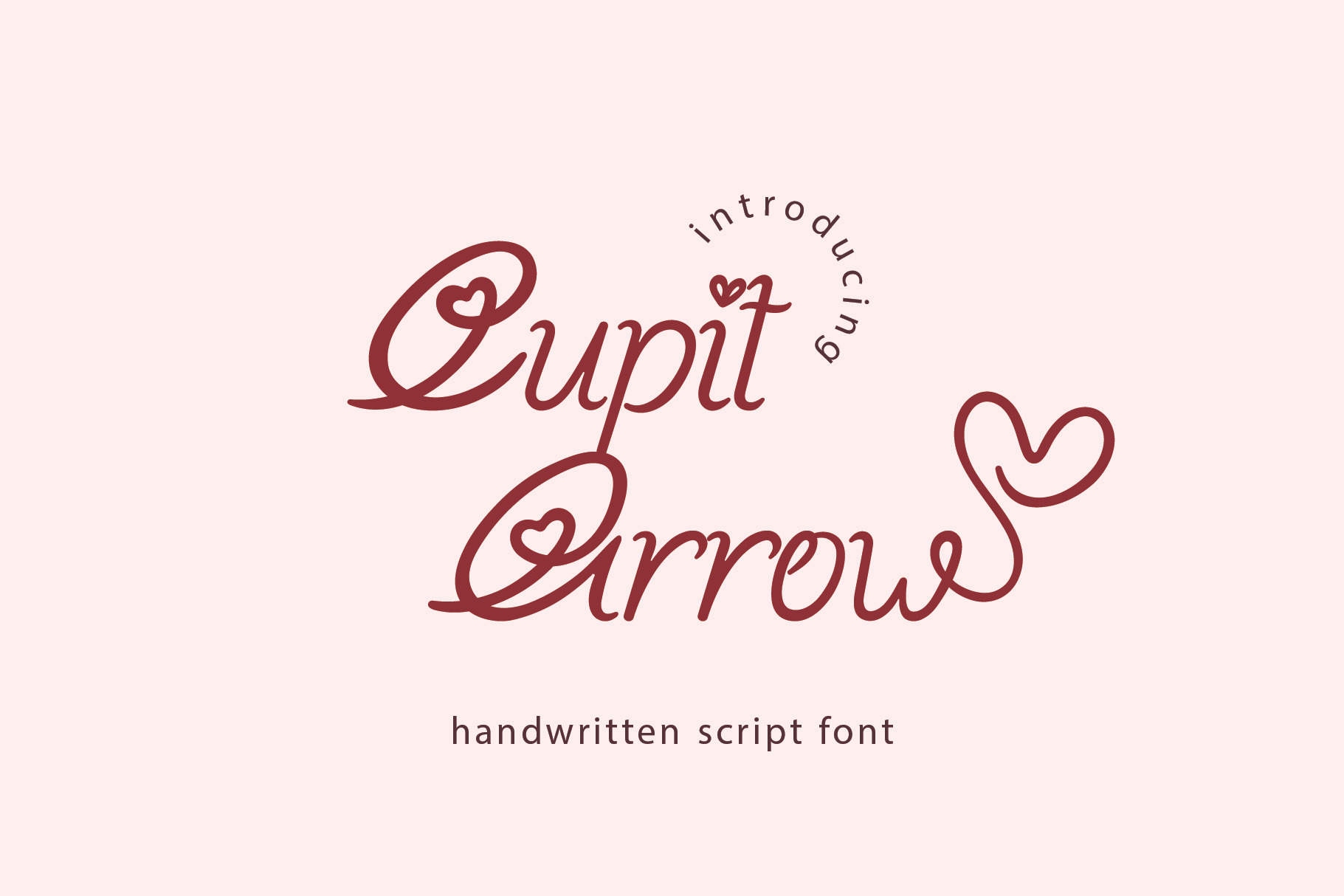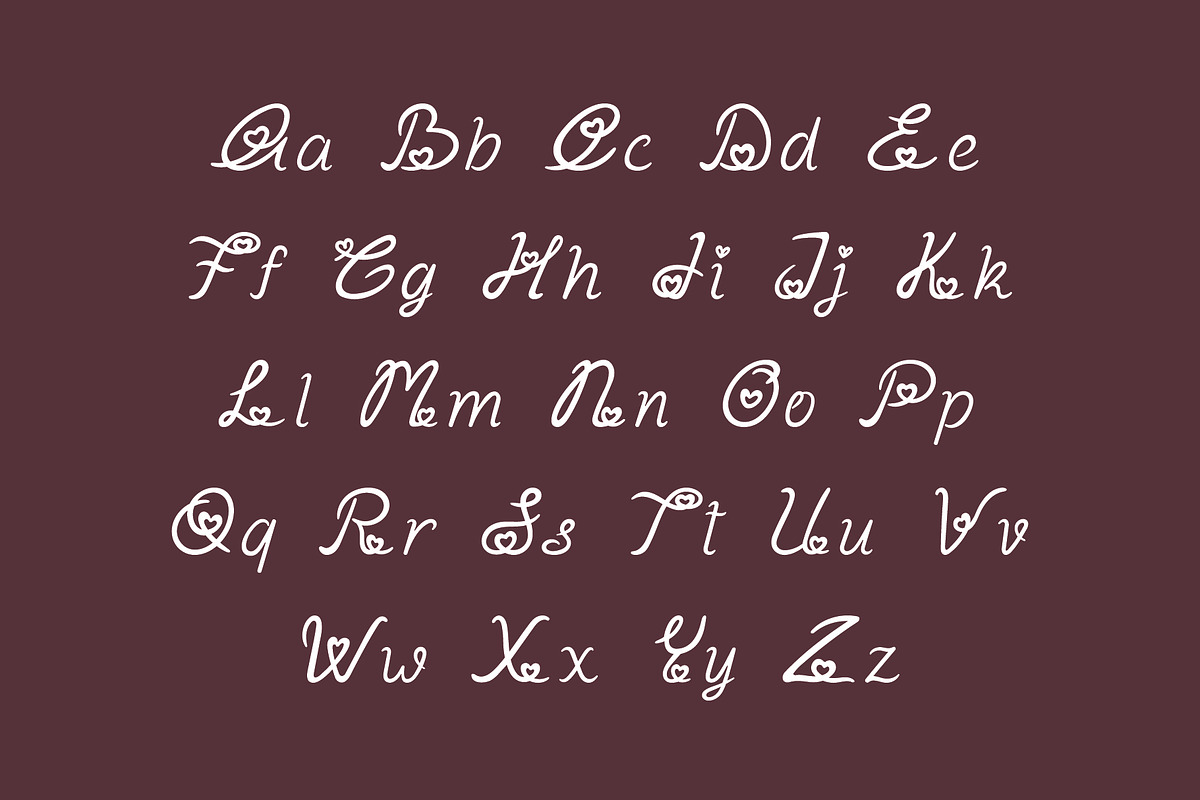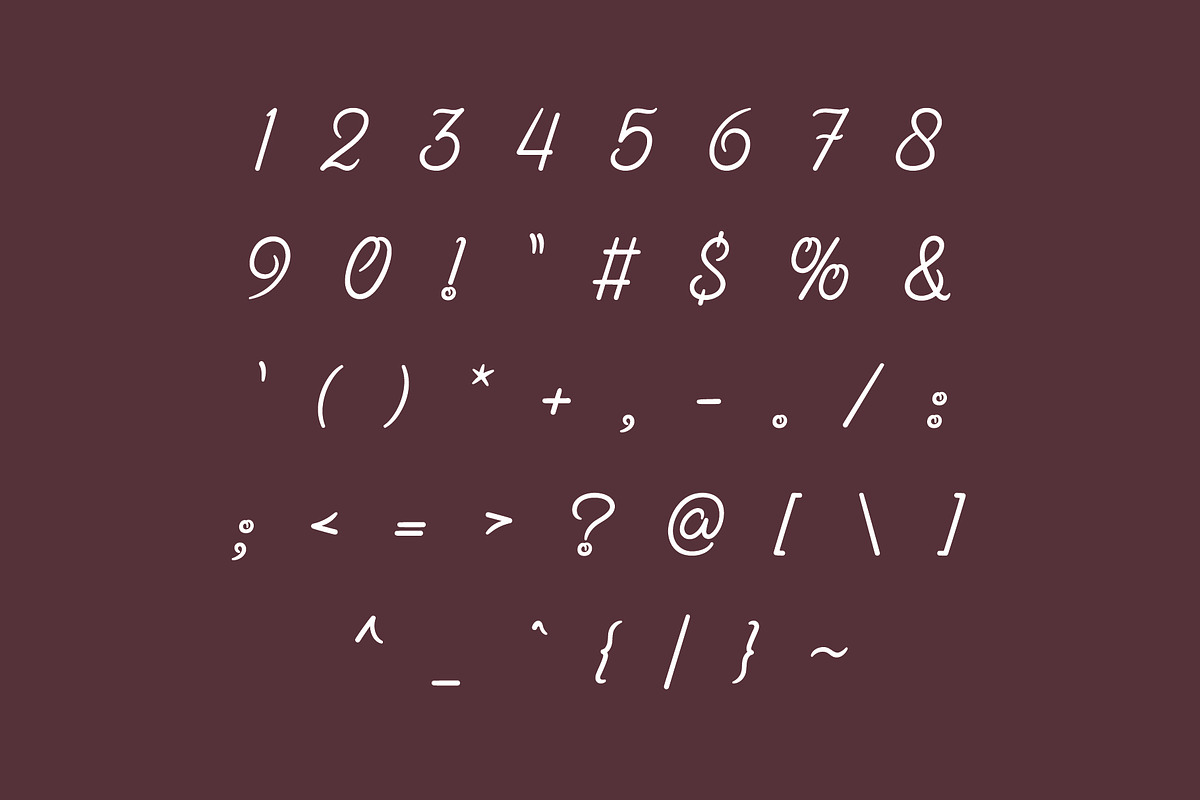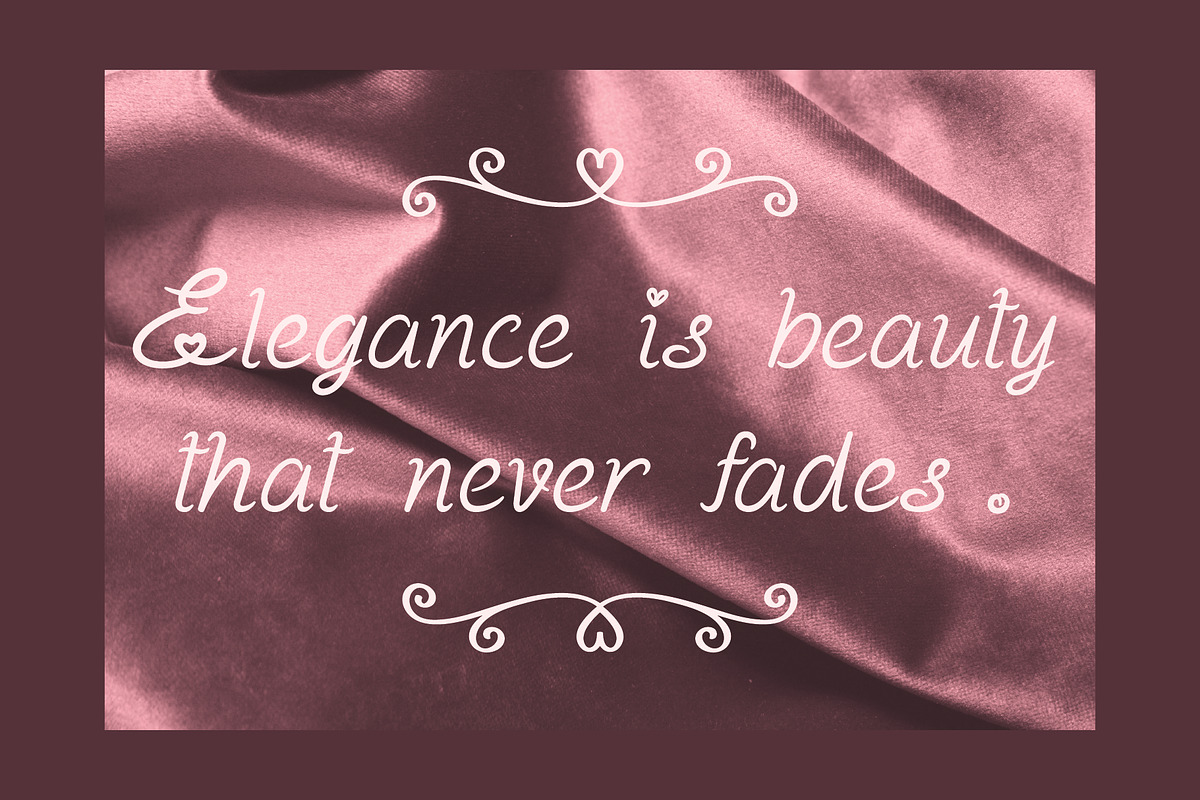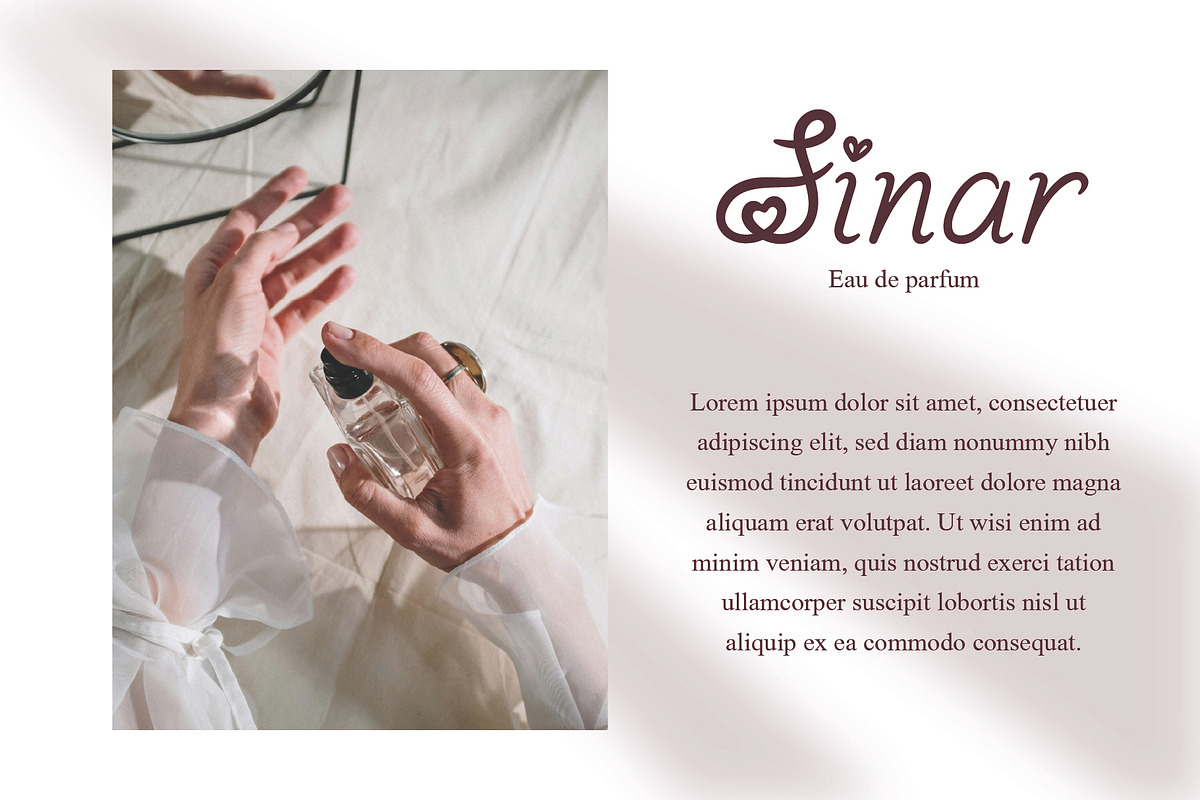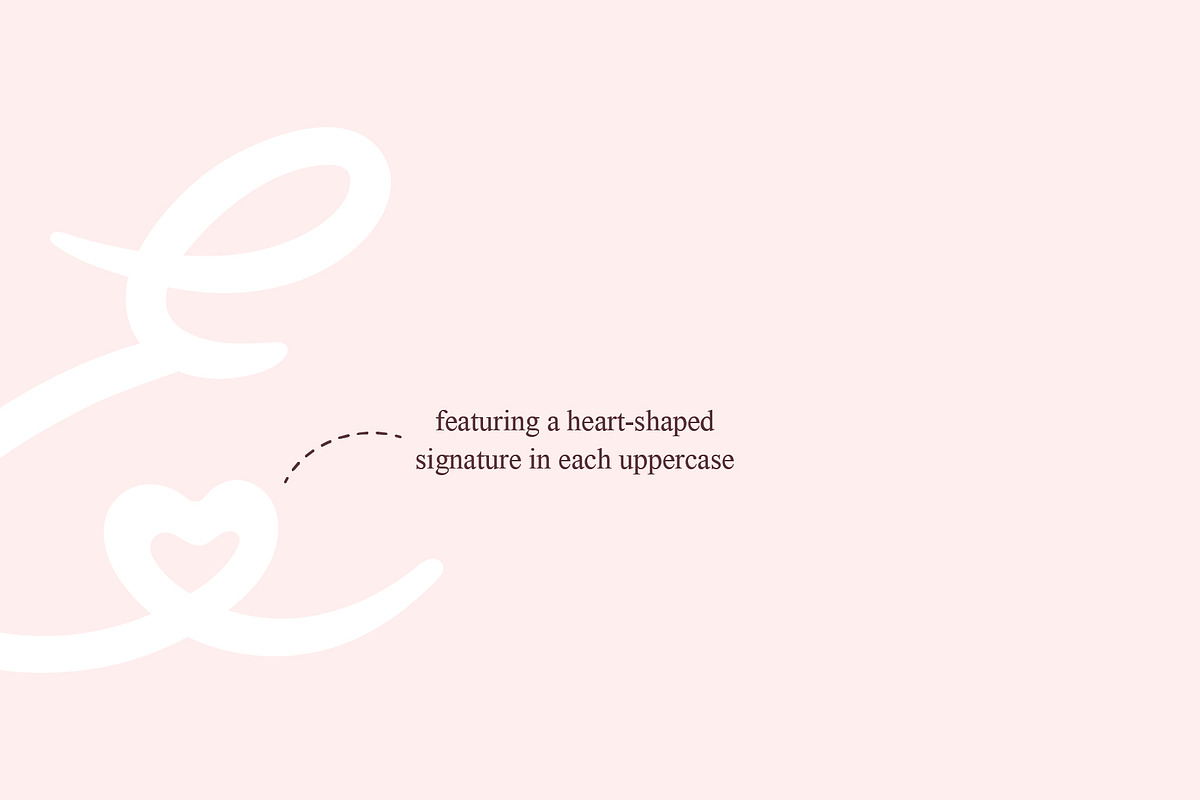
PGR Love Arrow - Script Font
Meet Love Arrow, the exquisite handcrafted font that captures the essence of elegance with its heart-shaped signature on every uppercase letter. This font is ideal for wedding invitations, greeting cards, logos, magazines, decorations, and many other creative projects.
Love Arrow comes with a full set of alphabets, numbers, and basic punctuation. It is available in TTF, OTF, and WOFF formats, making it versatile and easy to use across different design tools.
Add a touch of sophistication to your designs with Love Arrow, the font that stands out with its beautiful and elegant style!